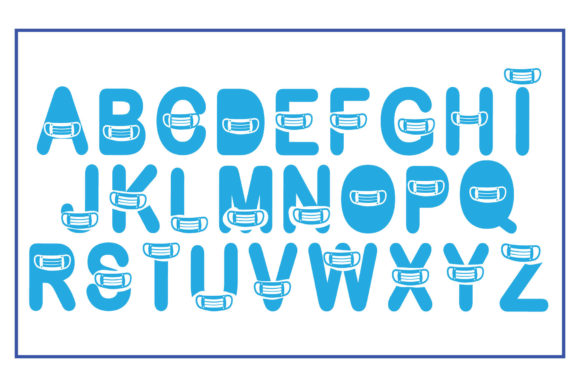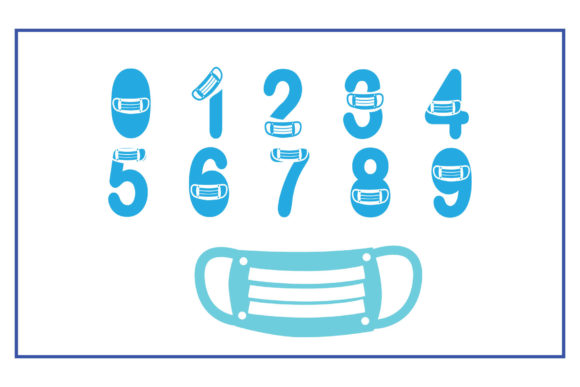
Introduction to Mask 2021 Font
As a designer, have you ever found yourself staring at a blank canvas, eager to bring your creative vision to life? The moment of truth arrives when you need a font that truly stands out, making your project pop. This is where the Mask 2021 Font comes into play, a cool and assertive decorative font that’s perfect for any creative project.
Whether you’re working on a poster, flyer, headline, booklet, or any other design, the Mask 2021 Font is an invaluable resource that will elevate your work to the next level. Its high-quality design and transparent background make it an ideal choice for designers looking for a design resource that’s both stylish and versatile. The best part? This fantastic font is available for free download, making it an absolute must-have for any design enthusiast.
Key Features of Mask 2021 Font
- High-quality design resource ideal for creative projects, offering a unique and modern aesthetic.
- Features a transparent background, making it easy to overlay onto images or use as a standalone design element.
- Designed with a high level of detail and precision, ensuring a crisp and clear appearance at resolutions up to 300 DPI.
- Suitable for a wide range of design applications, from branding and marketing materials to digital art and creative projects.
Honest Review: Mask 2021 Font
I recently had the chance to work with the Mask 2021 Font for a creative project, and I’m excited to share my thoughts. As a designer, I appreciate high-quality design resources that can elevate my work, and this font definitely fits the bill.
What works well with the Mask 2021 Font is its versatility. It’s available for free download, making it a great resource for designers on a budget. The font has a modern, sleek design that works well for a variety of creative projects, from digital graphics to print materials. I particularly appreciate the transparent background option, which allows for seamless integration into my designs.
- ✨ Versatile design suitable for various creative projects
- ✨ Transparent background option for easy integration
One limitation I’ve noticed is that the font may not be suitable for very small text sizes, as it can become difficult to read. Additionally, while the free download is convenient, it’s worth noting that the font may not be available for commercial use without a paid license.
Overall, I’m impressed with the Mask 2021 Font and would recommend it to designers looking for a high-quality, versatile font for their creative projects.
Tips for Getting the Most Out of Mask 2021 Font
For optimal results, use the Mask 2021 Font in conjunction with other design elements, such as images and shapes.
Experiment with different font sizes, colors, and transparencies to achieve the desired visual effect.
Use the transparent background feature to create a seamless design.
Common Use Cases for Mask 2021 Font
Mask 2021 Font is suitable for various creative projects, including: